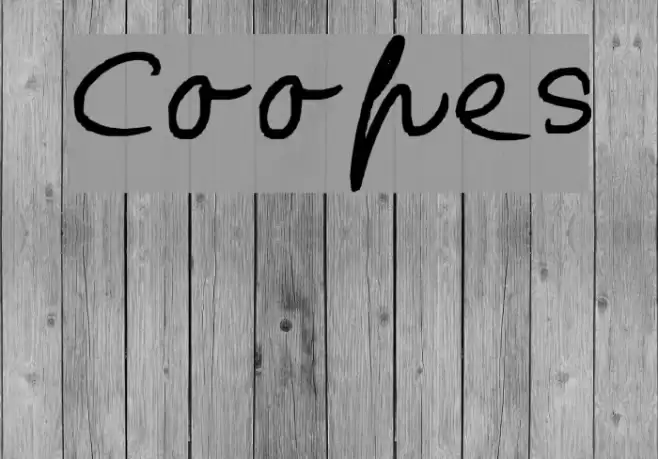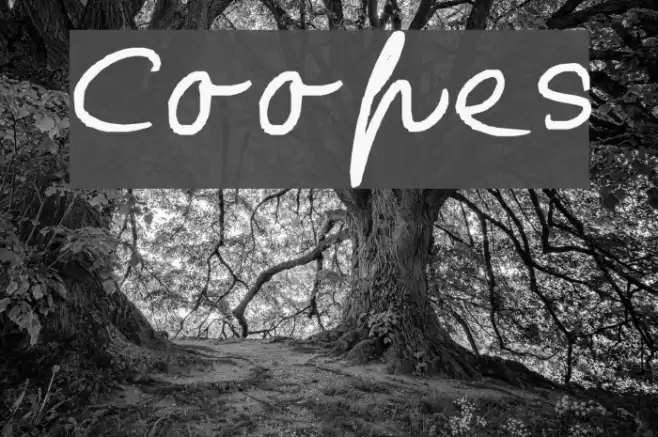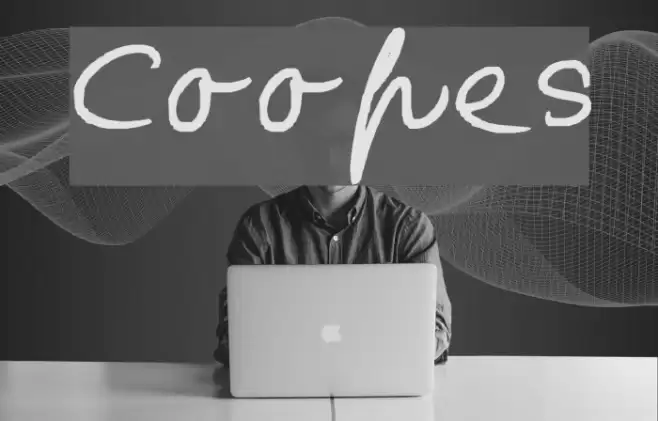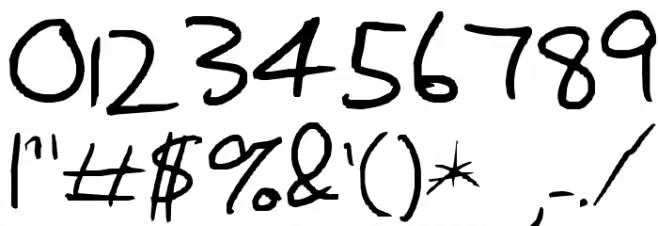
Coopes Font
Coopes Description
This font exhibits a casual, handwritten style with a playful and informal appearance. The letters are slightly slanted, giving a dynamic and lively feel. The strokes are uneven, mimicking the natural flow of handwriting, which adds a personal touch. The uppercase letters are bold and prominent, while the lowercase letters maintain a consistent flow, enhancing readability. Numbers and special characters follow the same handwritten theme, ensuring uniformity across all characters. The overall design is approachable and friendly, making it suitable for projects that require a personal or informal tone.
A casual, handwritten font with a playful and informal style from Uncategorized fonts.
- Proposed Projects: Ideal for greeting cards, personal invitations, casual branding, and social media graphics.
- Overall Style: Casual
- Use Case: Headlines, Informal text, Personal projects